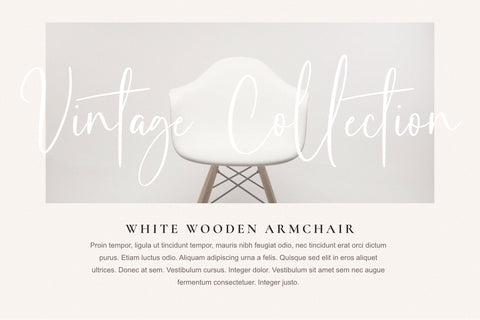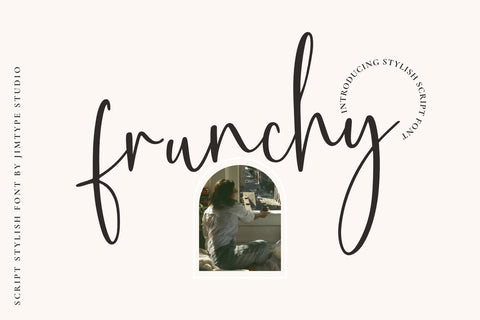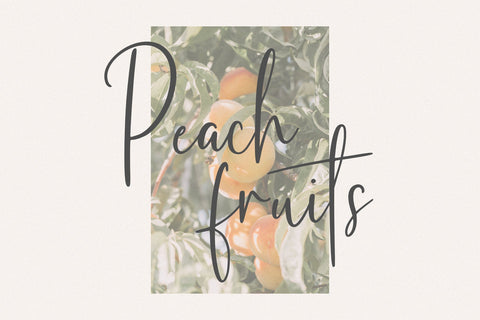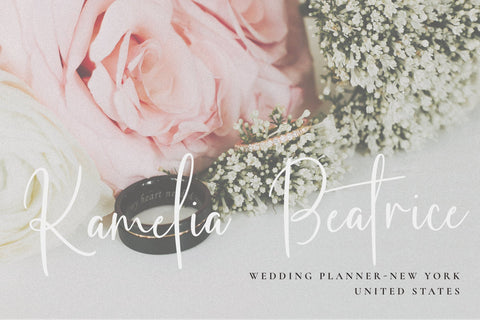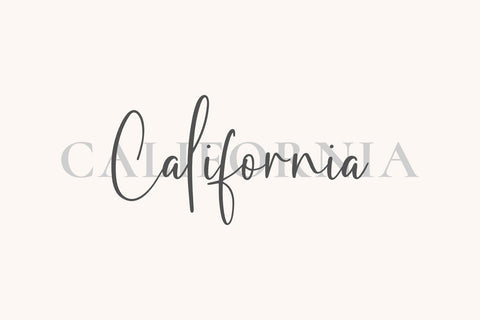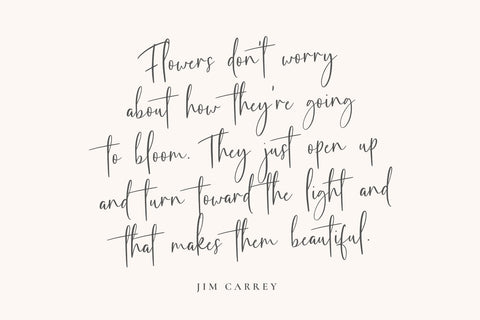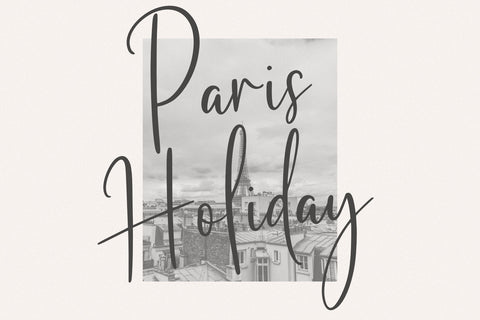
Frunchy Font
Frunchy is a lovely modern script font. You can use this font for any purpose like wedding, social kit, business, cards, shirt, logo, watermark, web design, and many other projects. This font includes lowercase and uppercase letters, numbers, punctuation, and multilingual support.